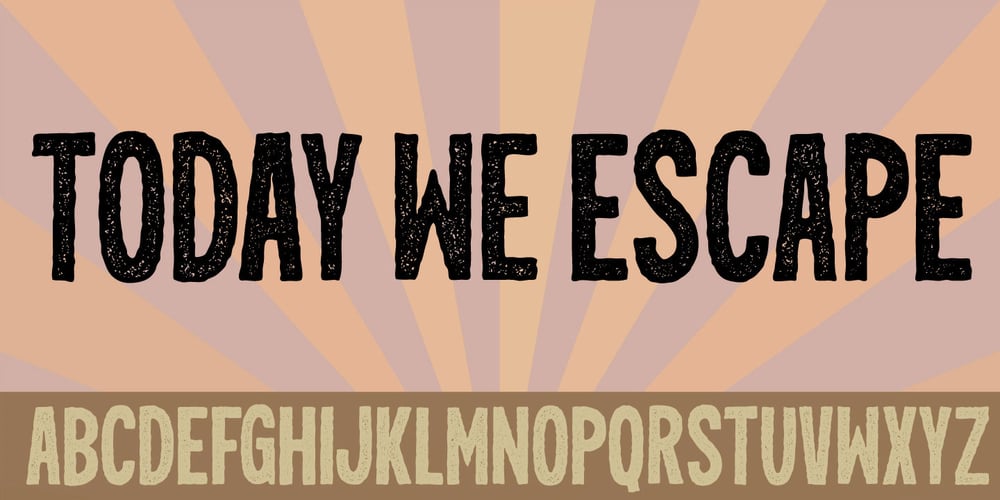
Today We Escape
Today We Escape font
Today We Escape Font Family was designed by Jakob Fischer and published by PizzaDude.dk. Today We Escape contains 1 styles and family package options. Today We Escape has got rugged edges and a slightly worn surface without overdoing it. The letters are ALL CAPS, but upper and lower case are different. Today we escape comes with substitution characters for double letters!